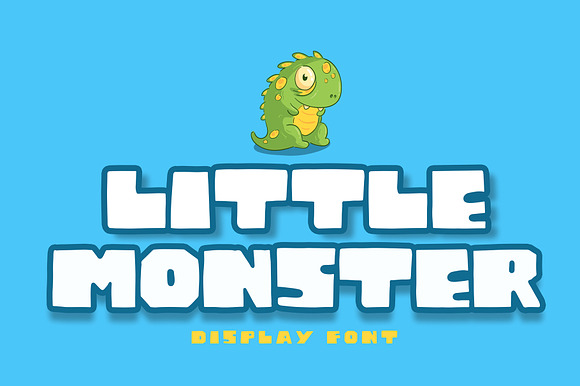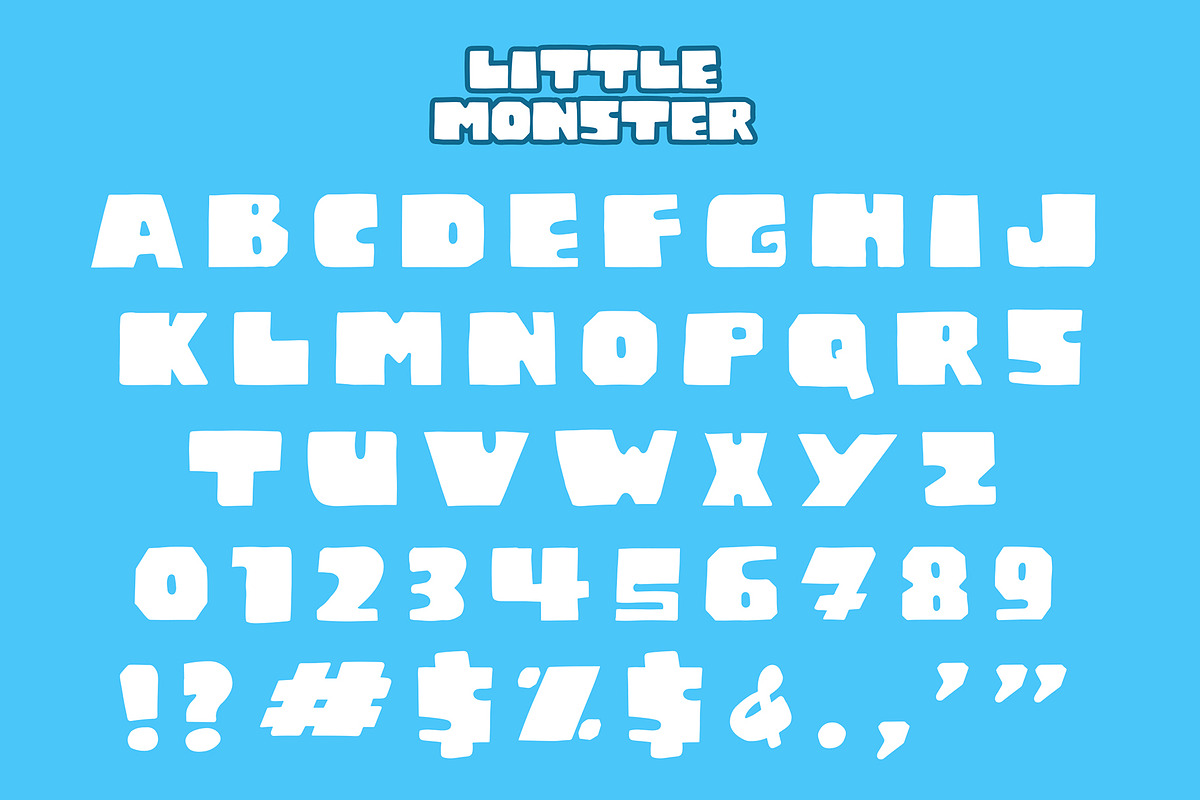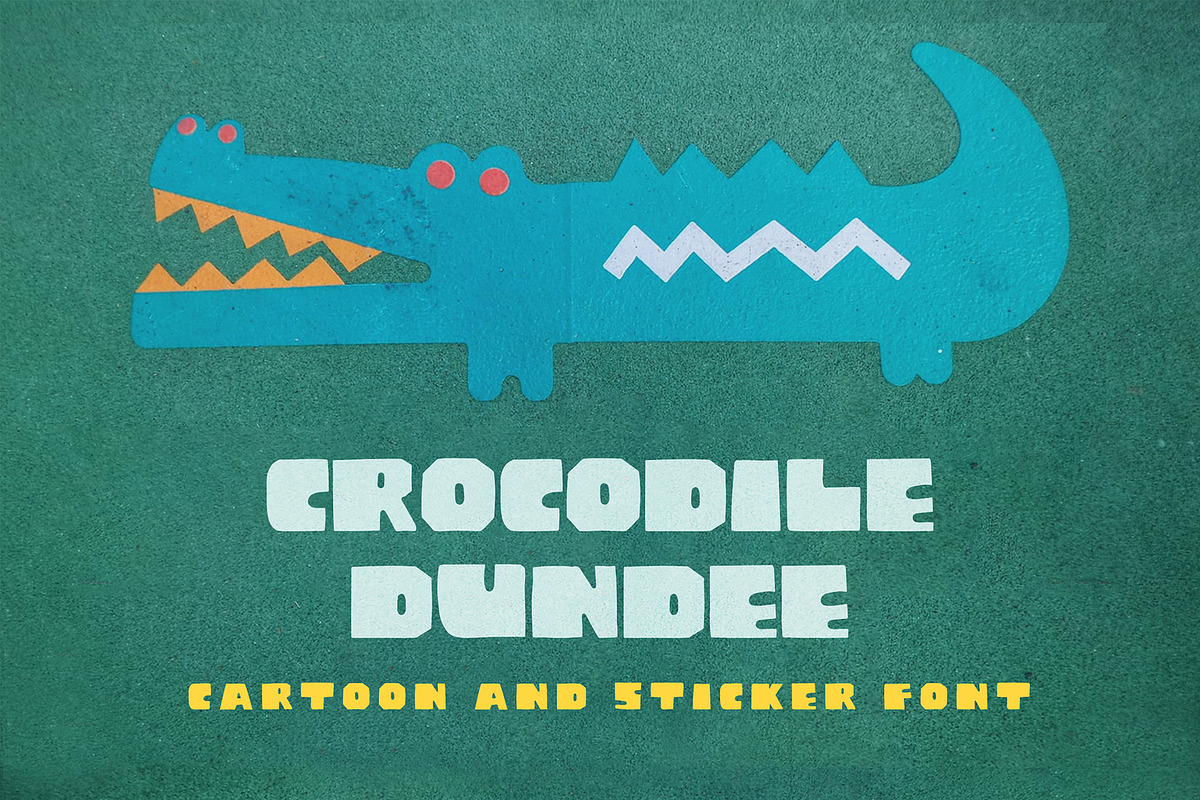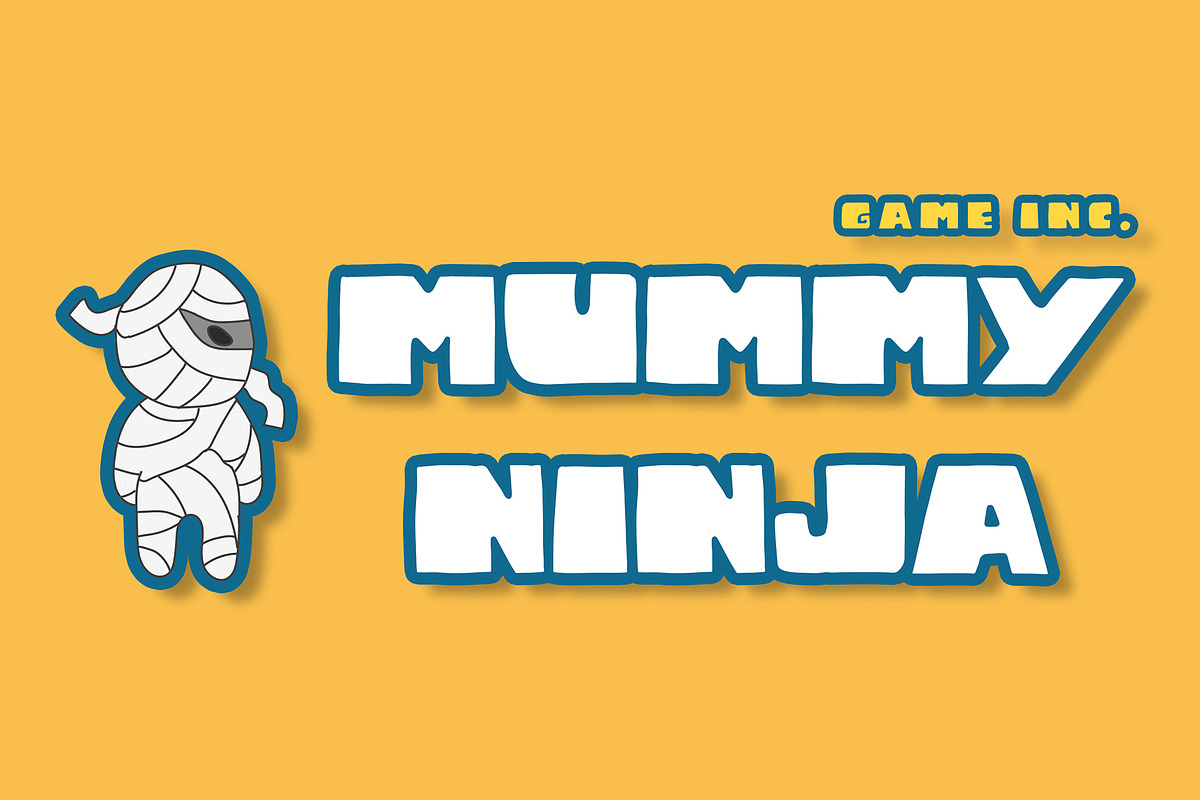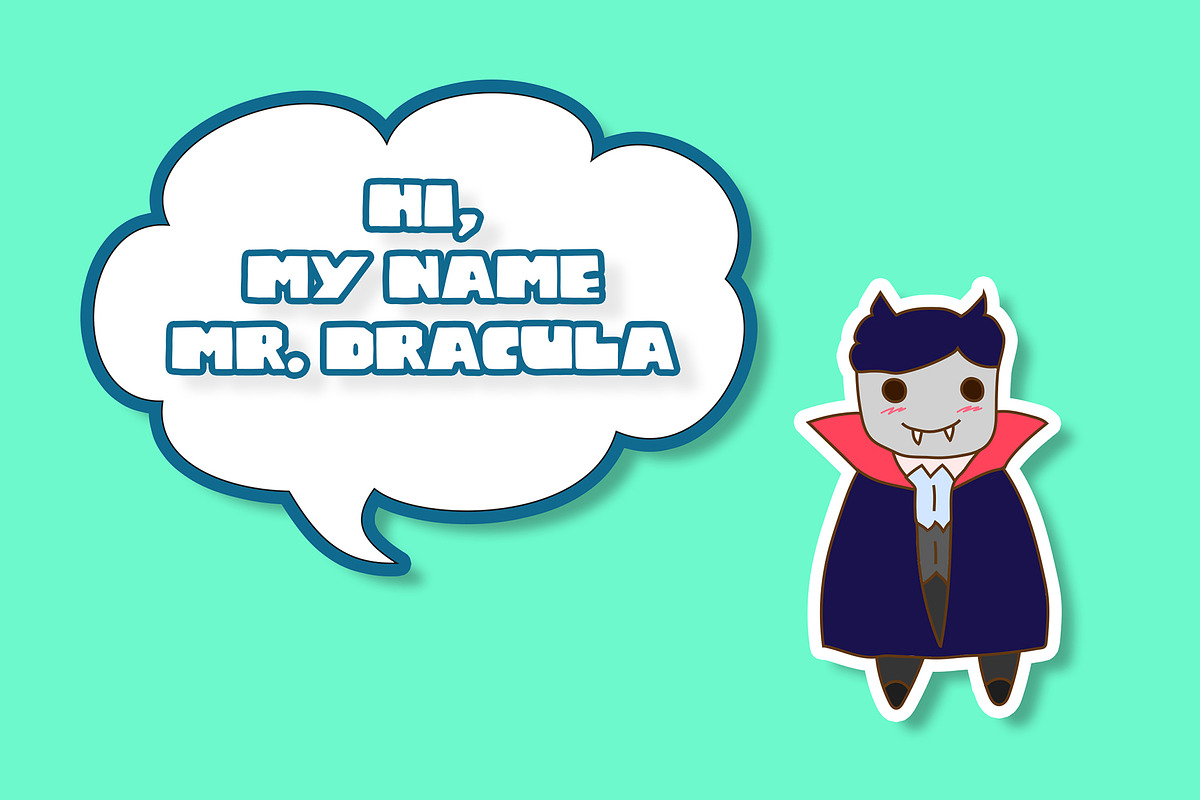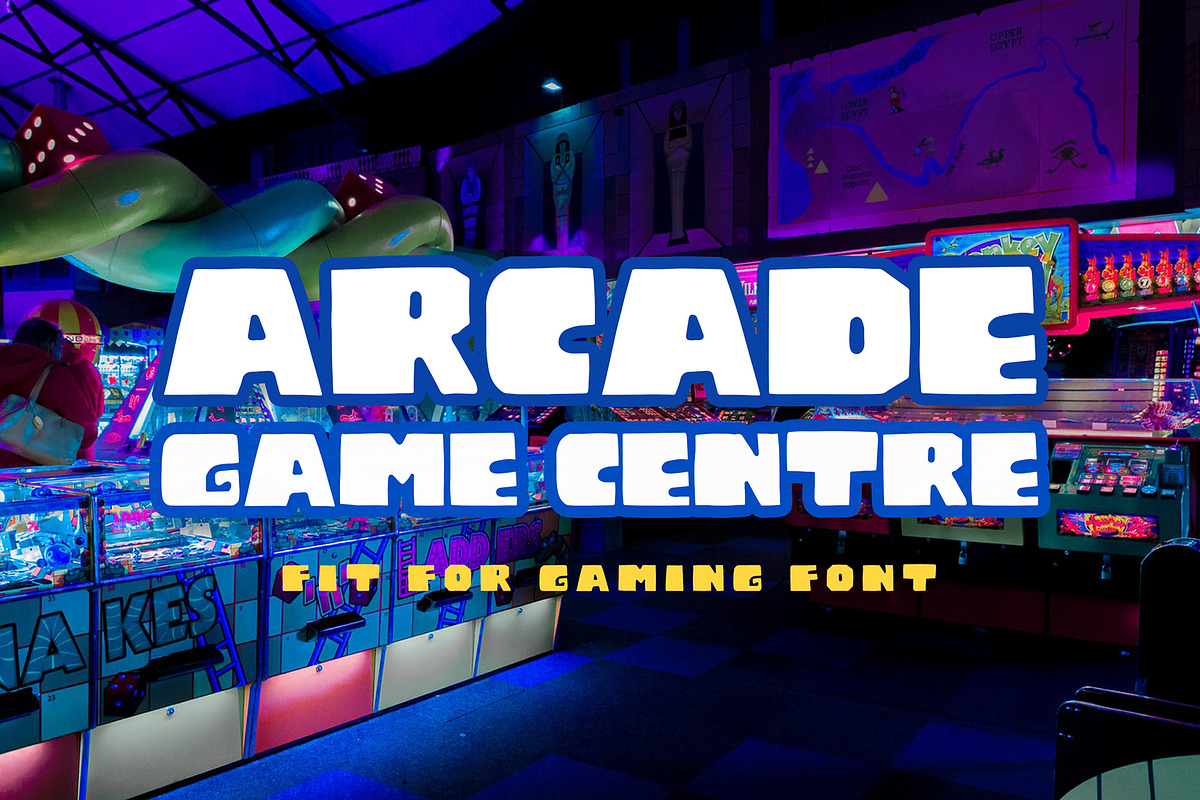
Little Monster Display Font
Little Monster Display Font is a cute and amazing display font that will make children's themed designs stand out!
Little Monster is perfect for branding projects, logo, book cover design, tshirt designs, social media posts, advertisements, product packaging, product designs, label, watermark, invitation, stationery and any projects.
Little Monster Display Font by Formatika Studio fits naturally into Branding, posters, packaging, typography.